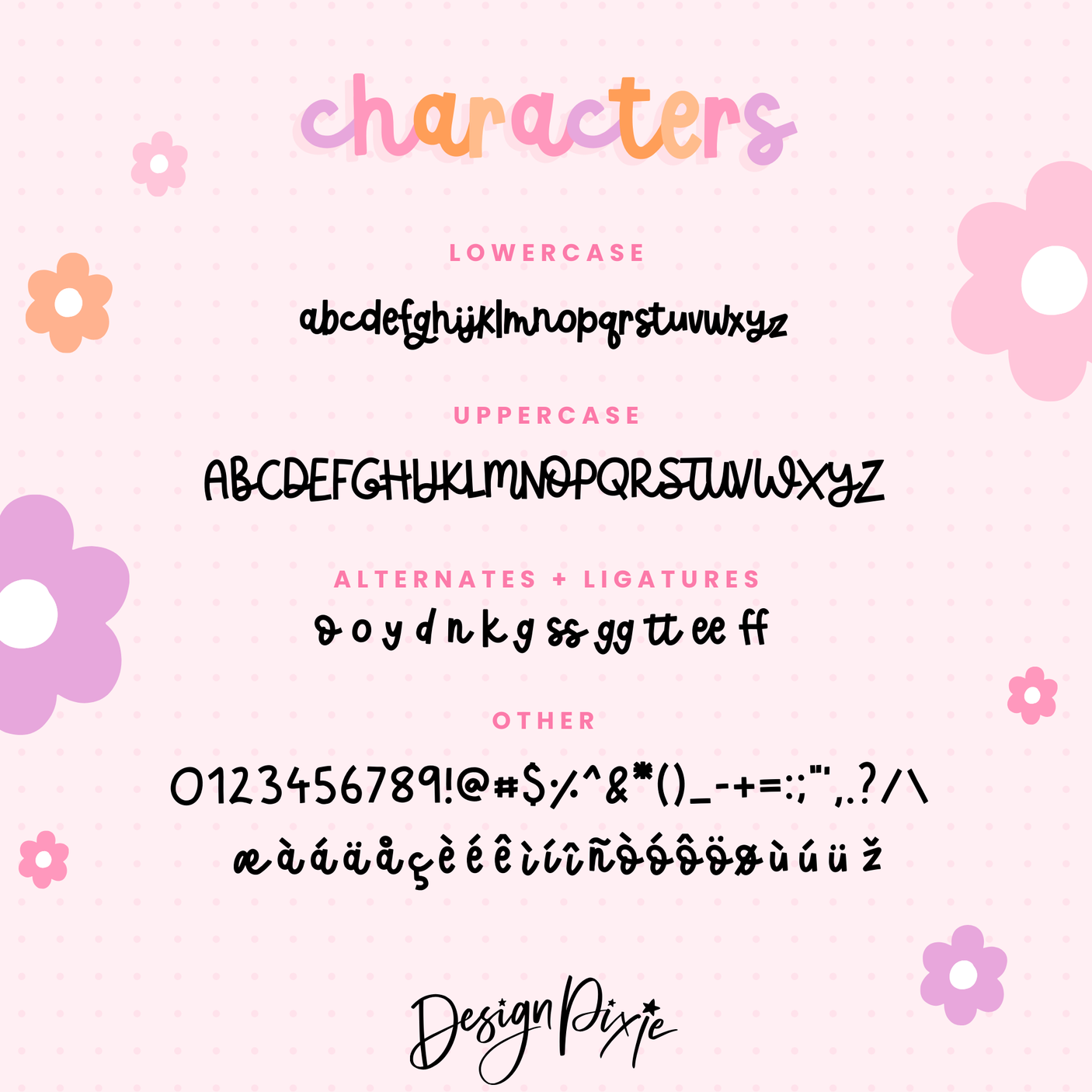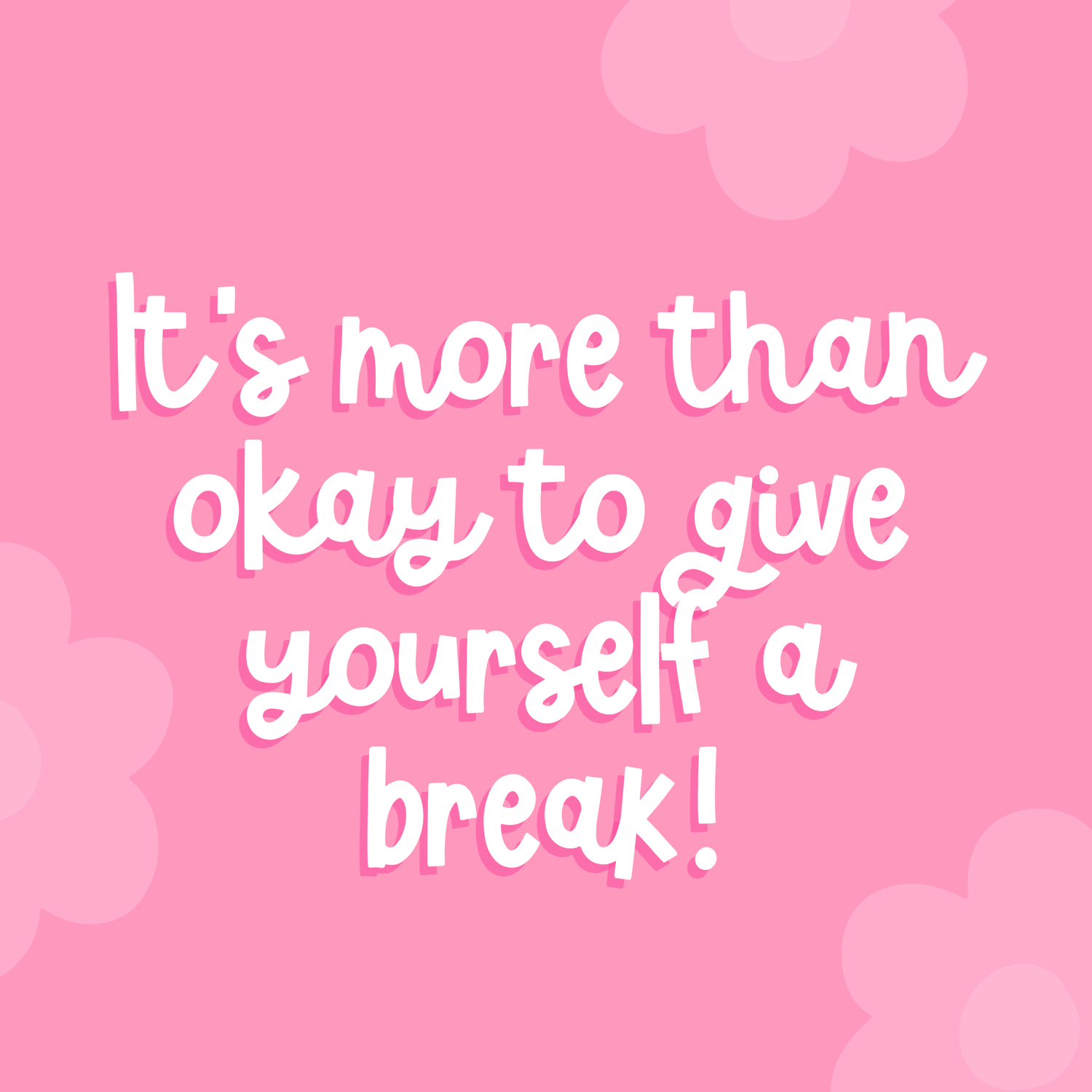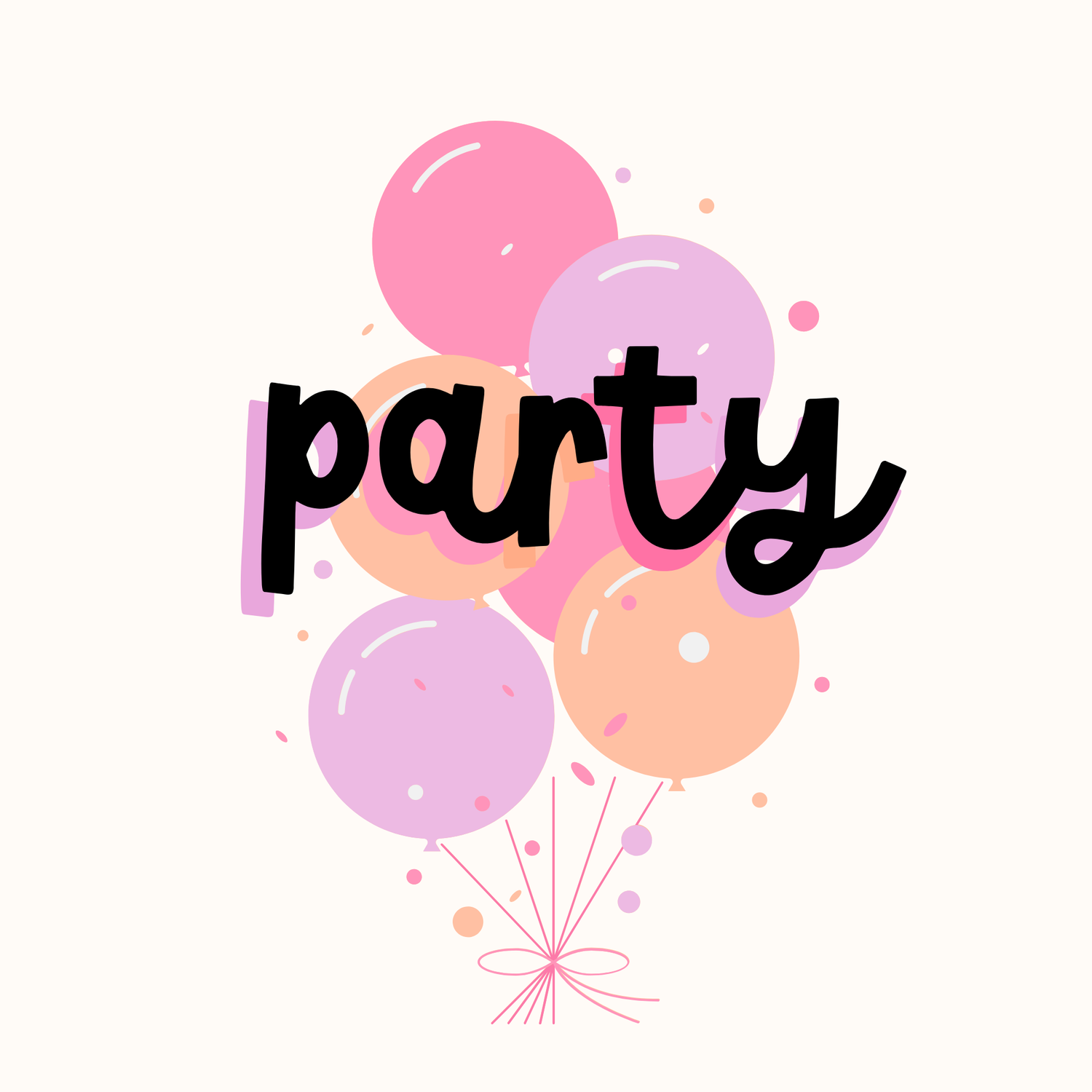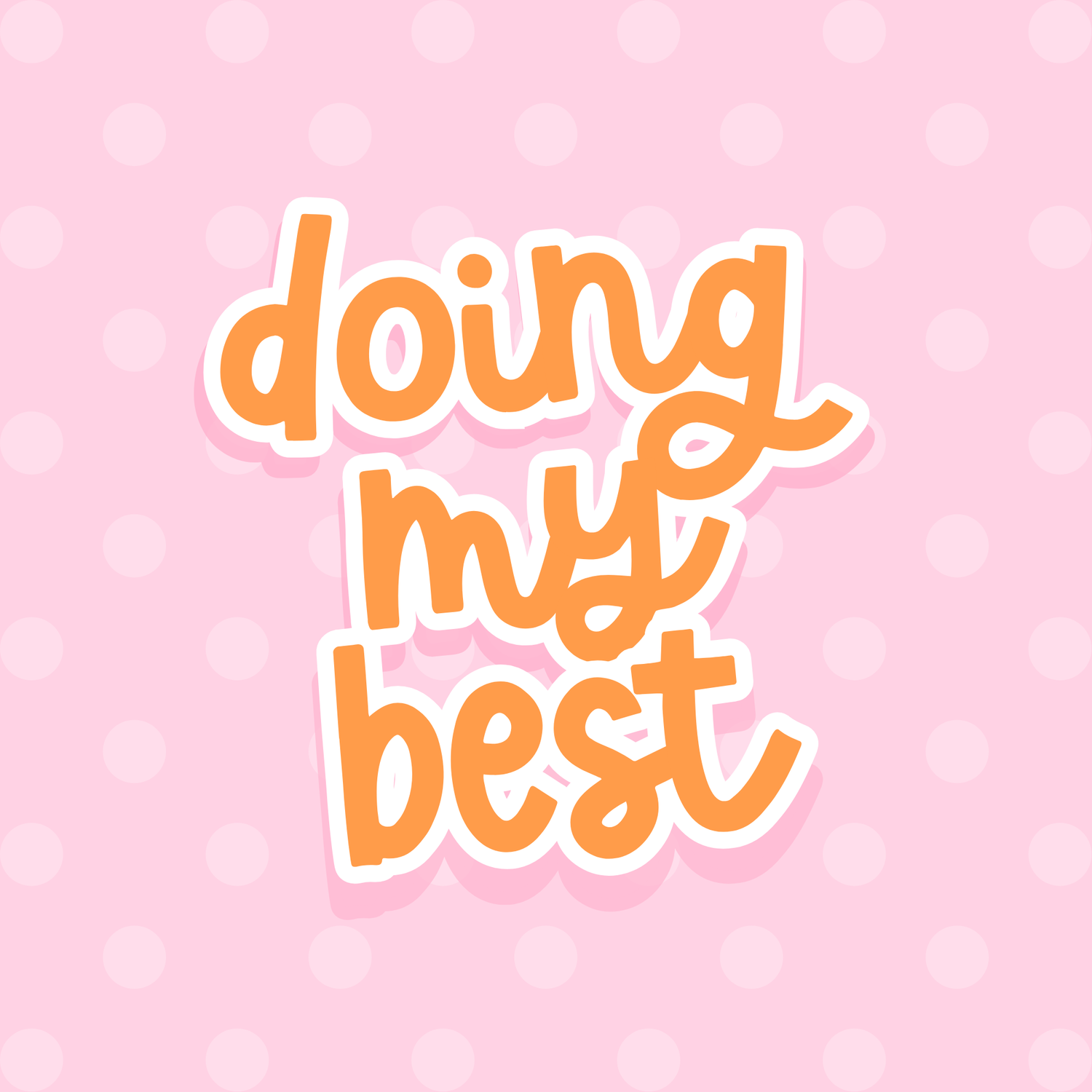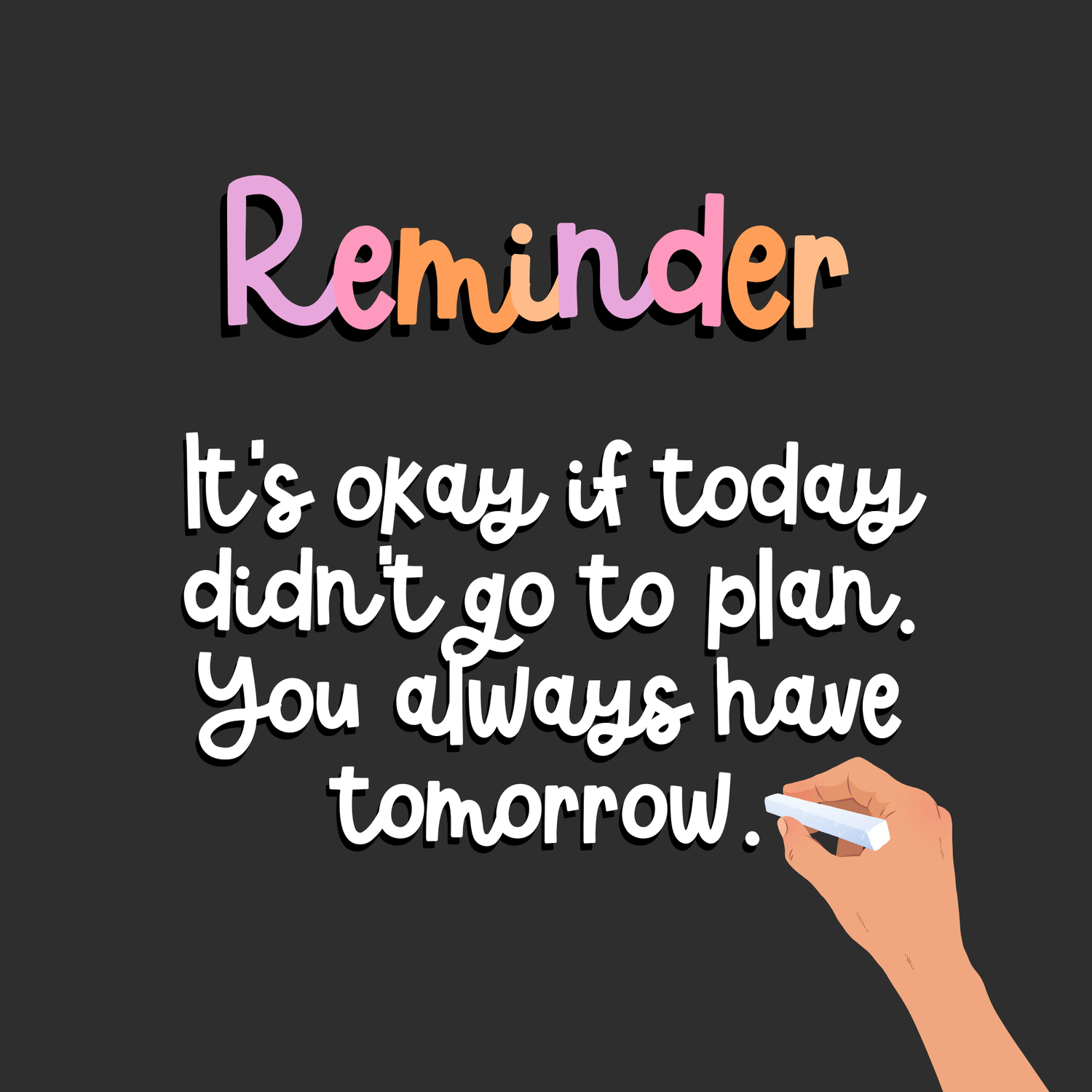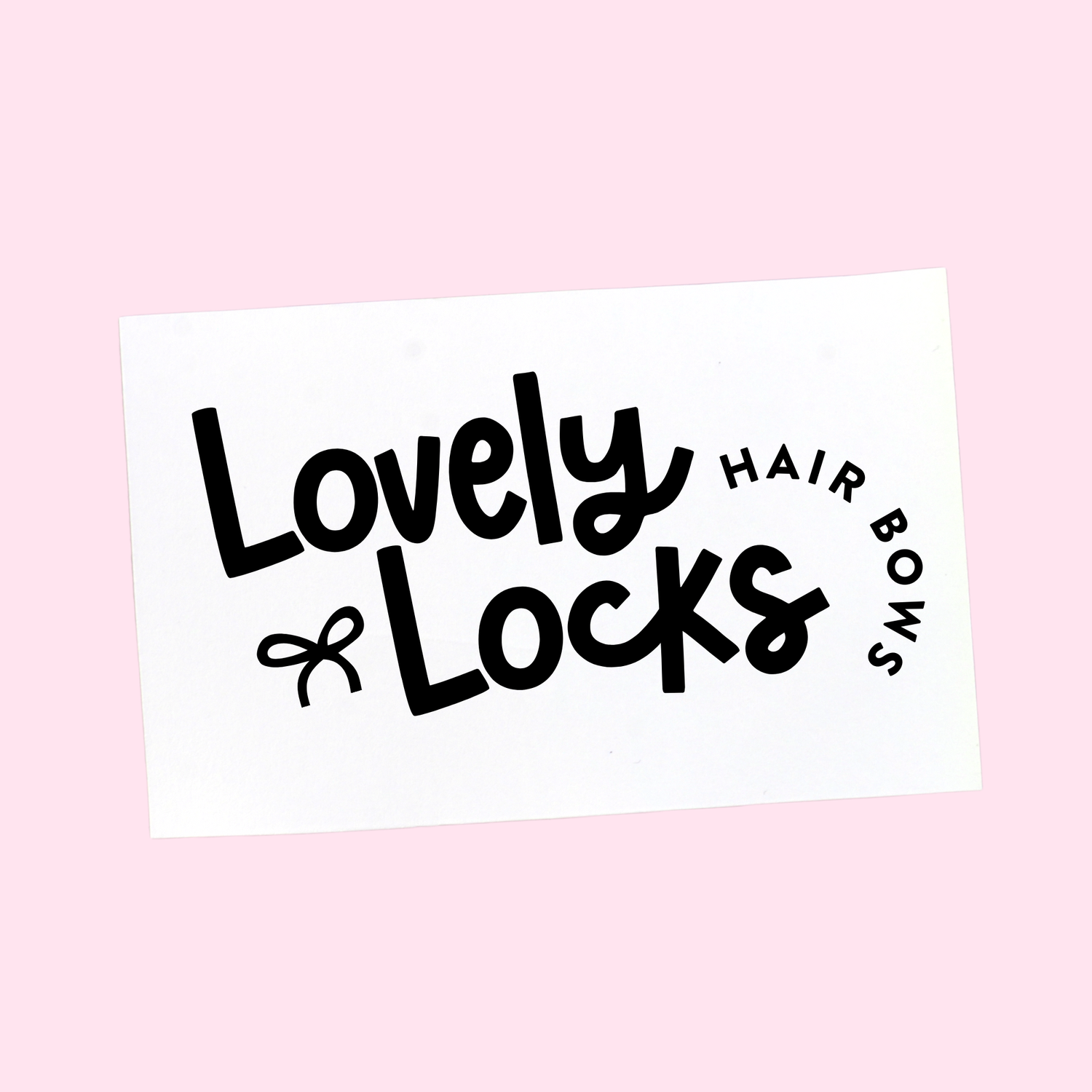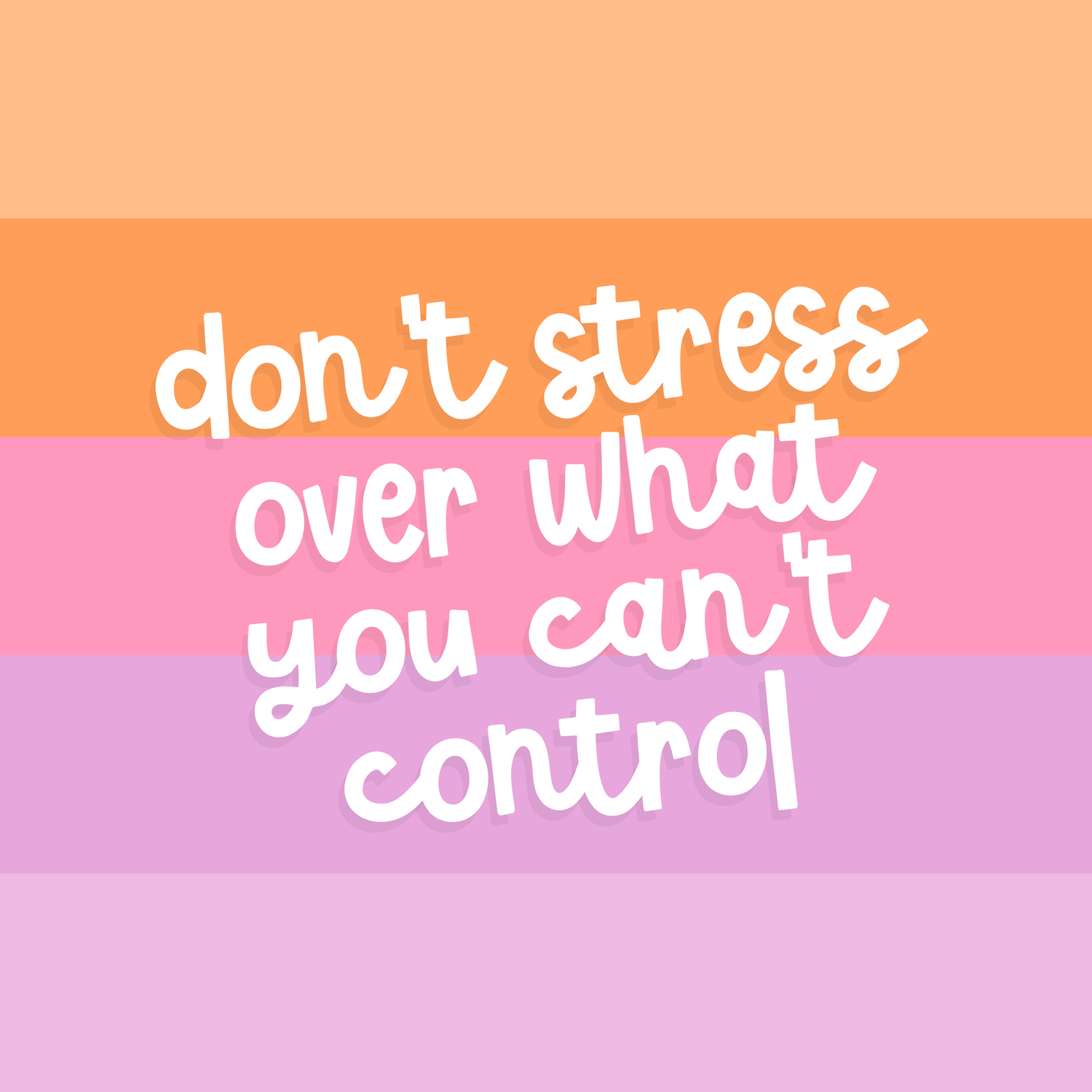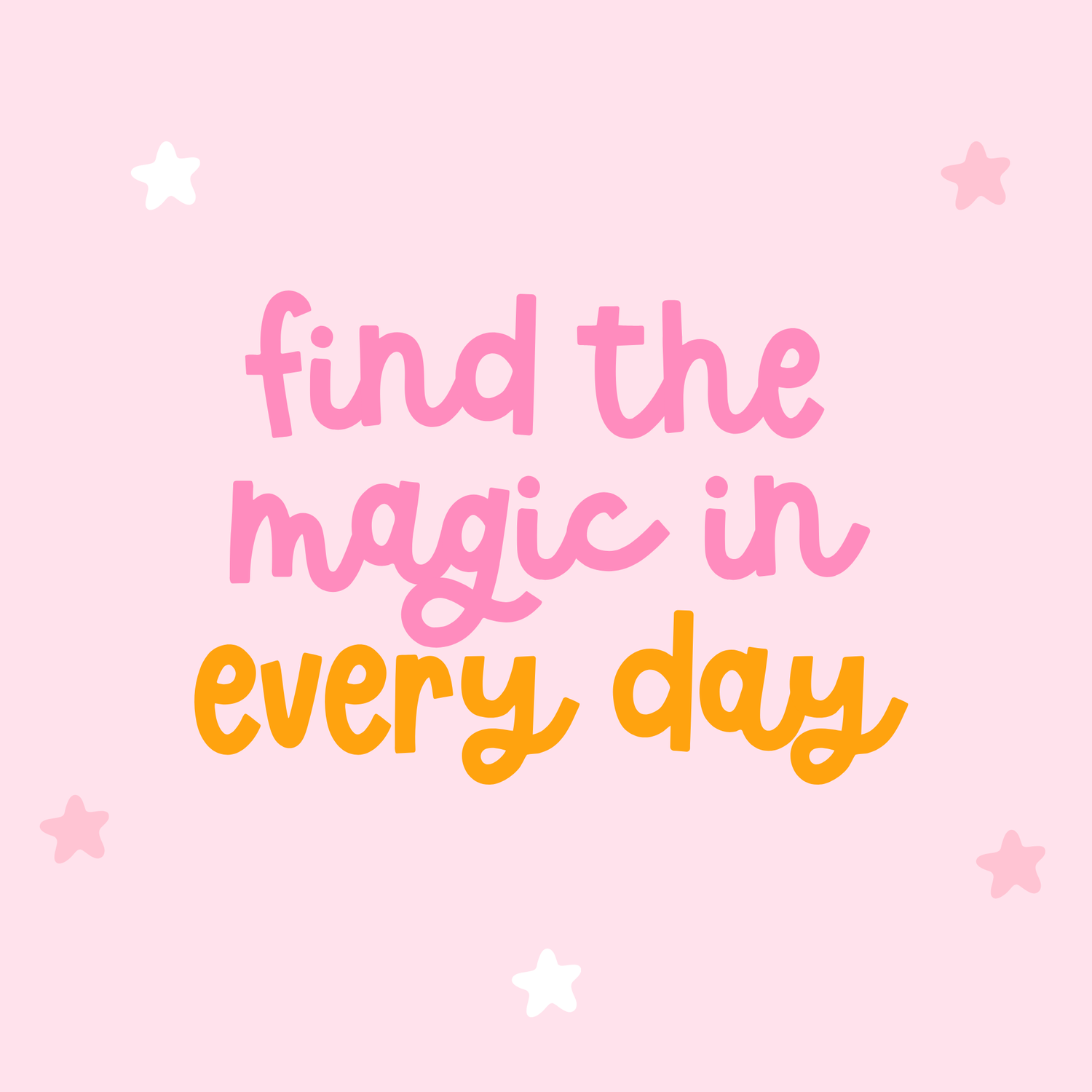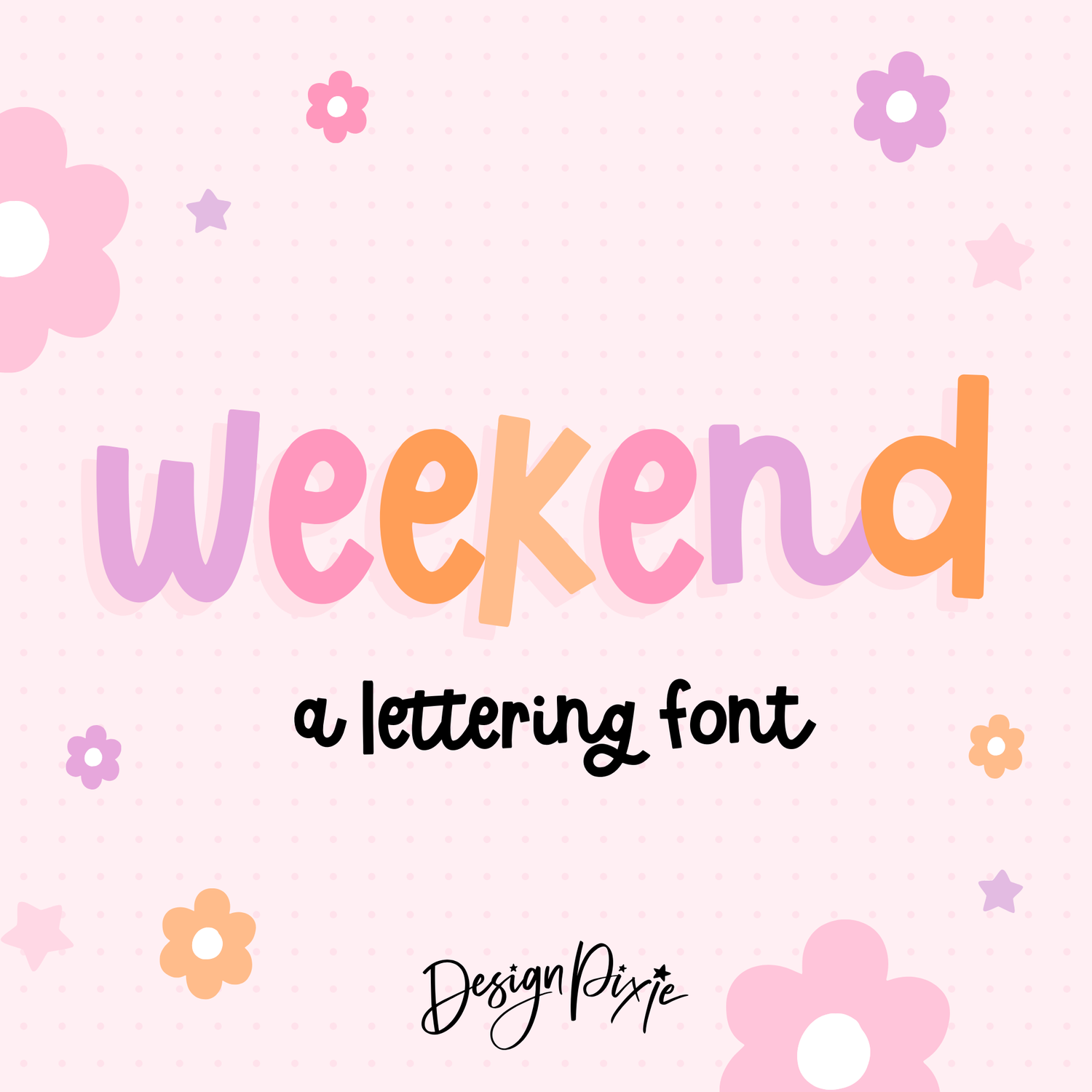
Weekend Font
Unleash your creativity with Weekend, a bold marker font bursting with vibrant personality. Perfect for bringing a fun and playful vibe to your designs, Weekend captures the essence of carefree days and spontaneous moments.
With its quirky and cute style, Weekend is ideal for lettering quotes, creating eye-catching logos, designing trendy apparel, and crafting stickers that stand out. Each letter is designed to feel like it’s been hand-drawn with a bold marker, adding an authentic and lively touch to your projects.
Whether you're working on a fun project or branding that needs a burst of energy, Weekend is your go-to font. Let its charm and boldness make your designs pop and leave a lasting impression. Embrace the weekend spirit and let your creativity run free!